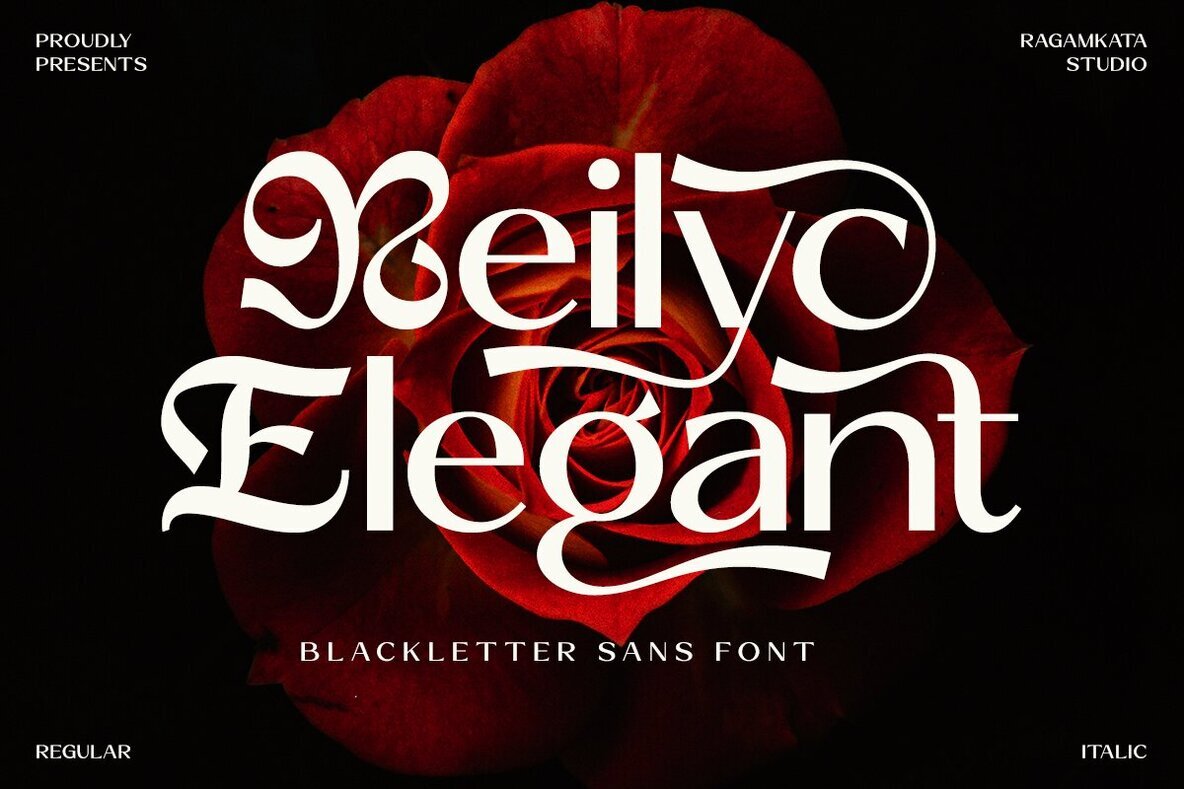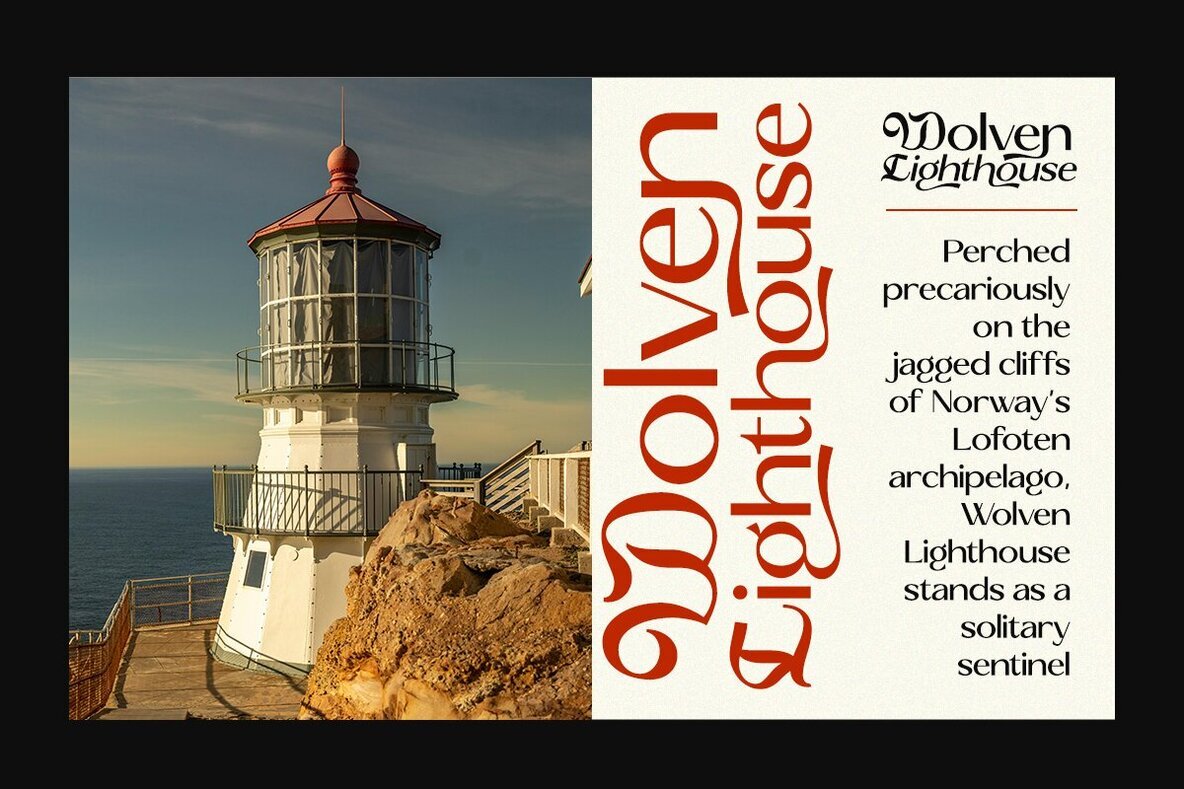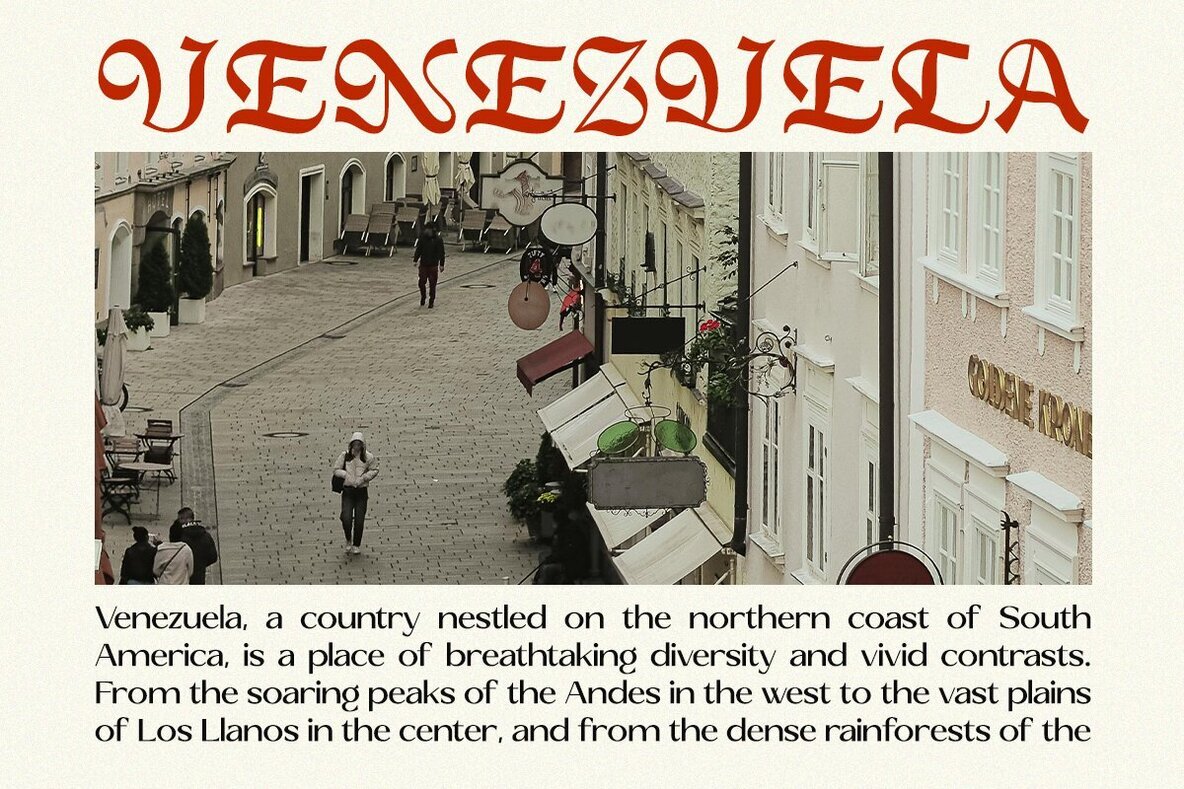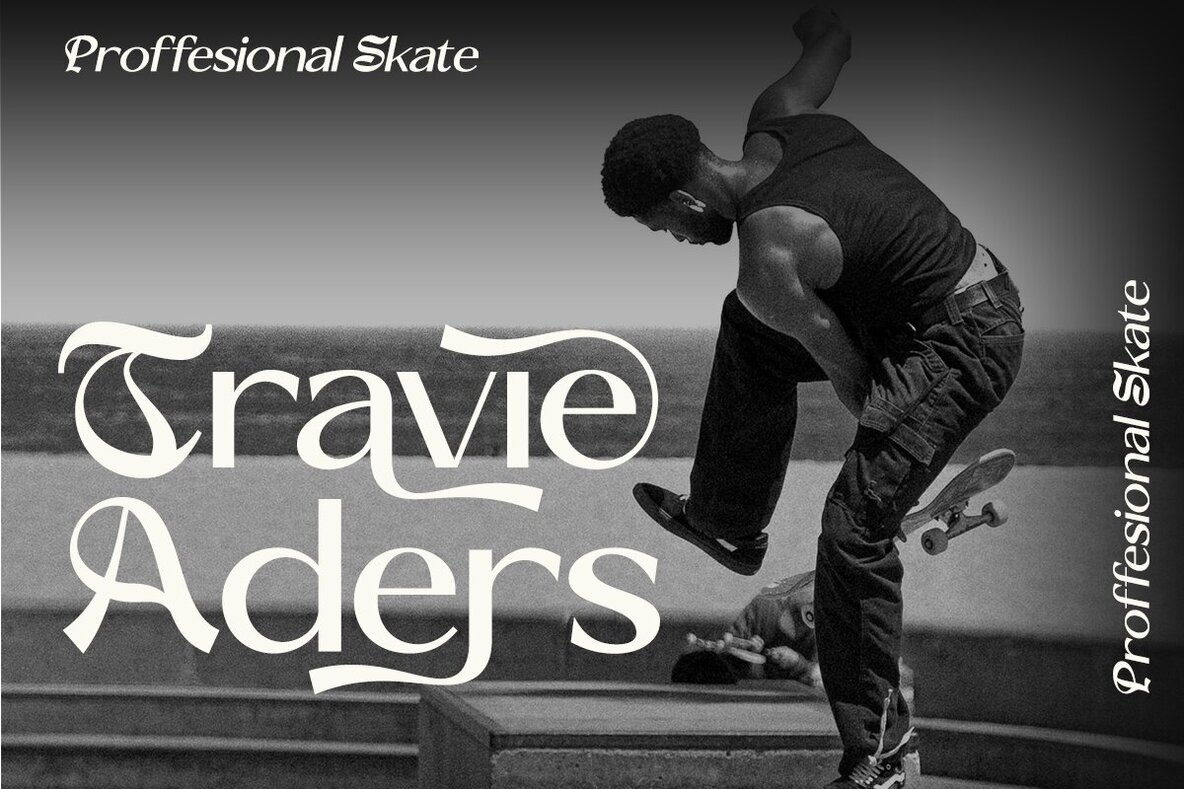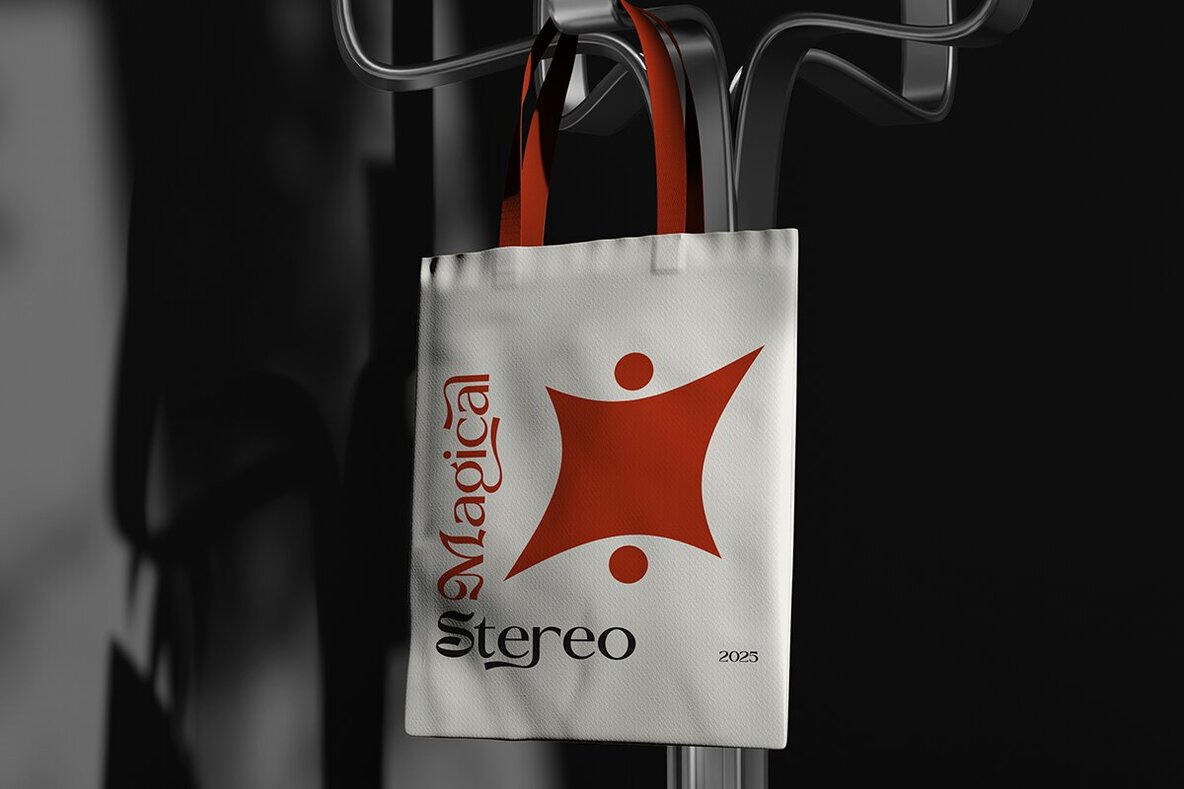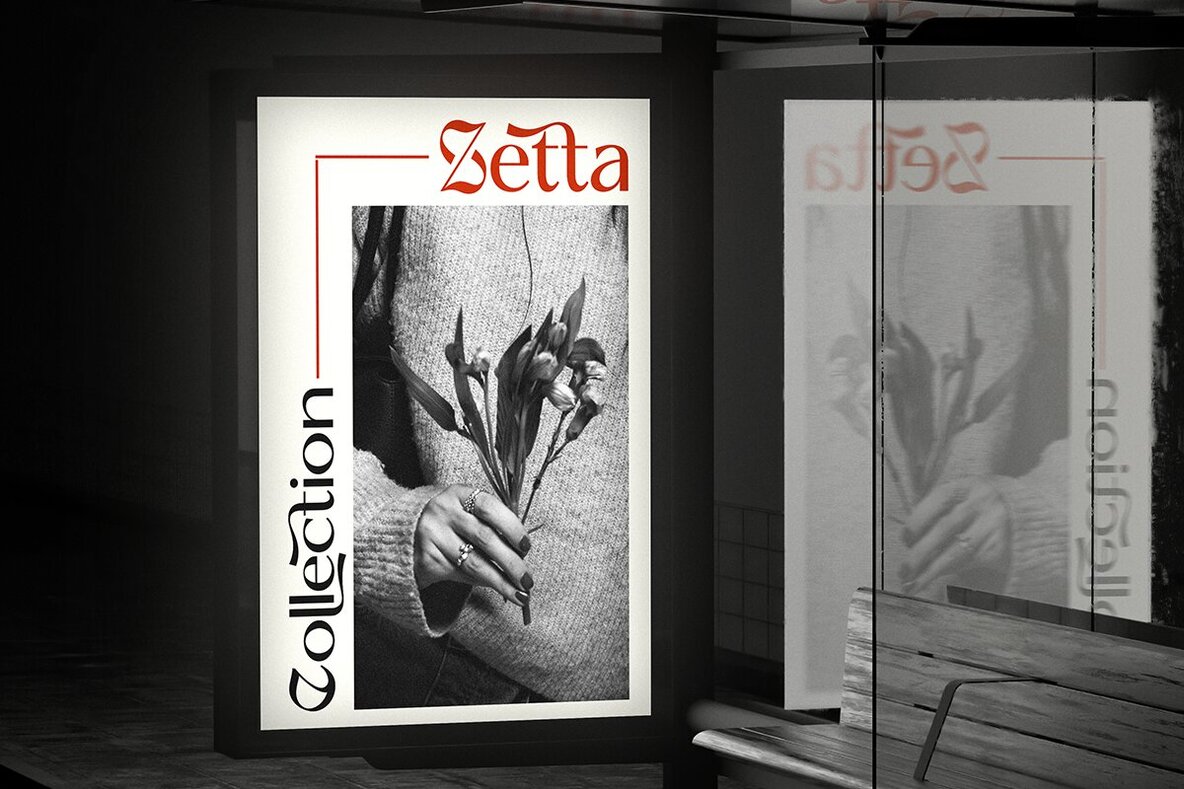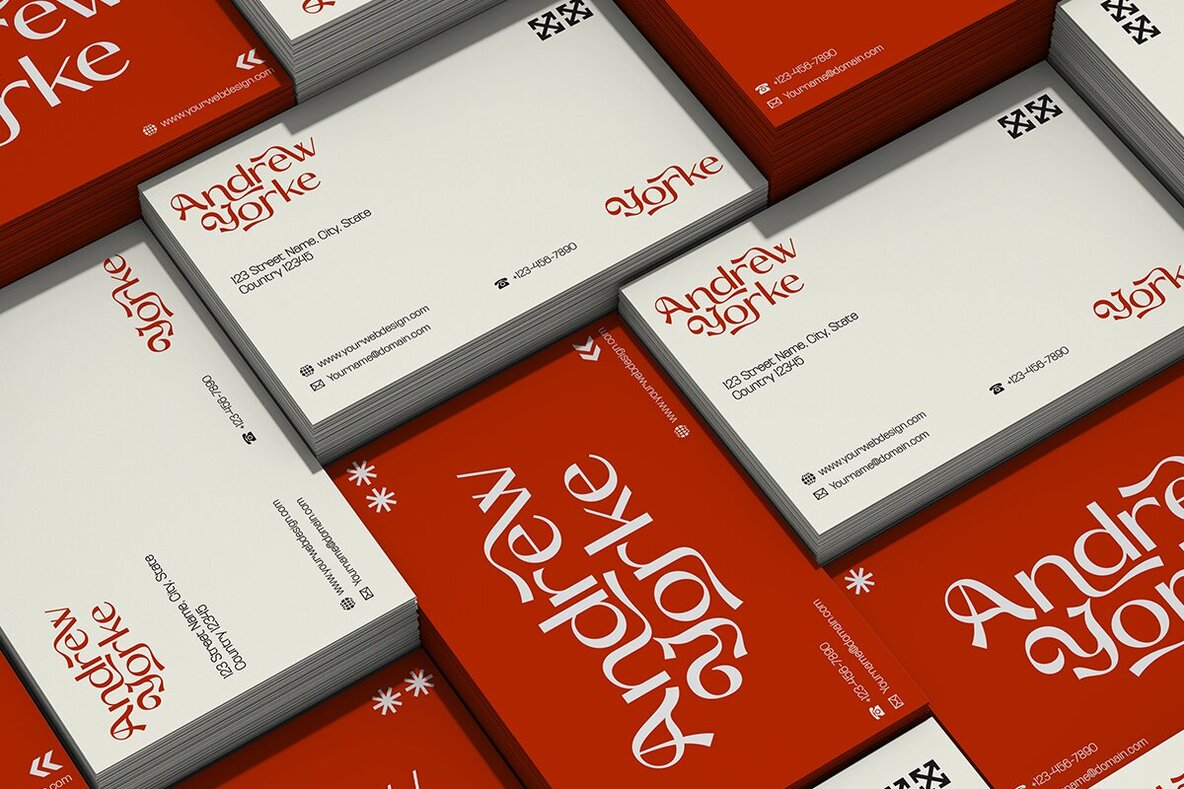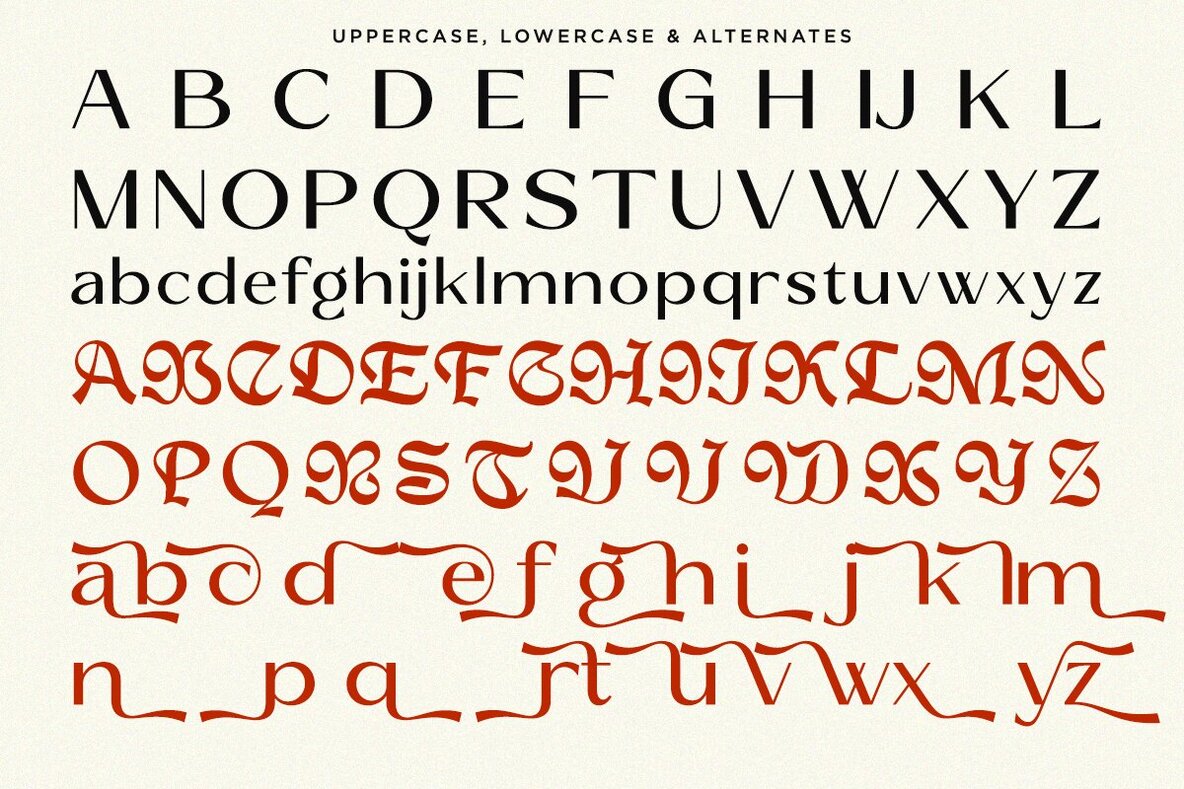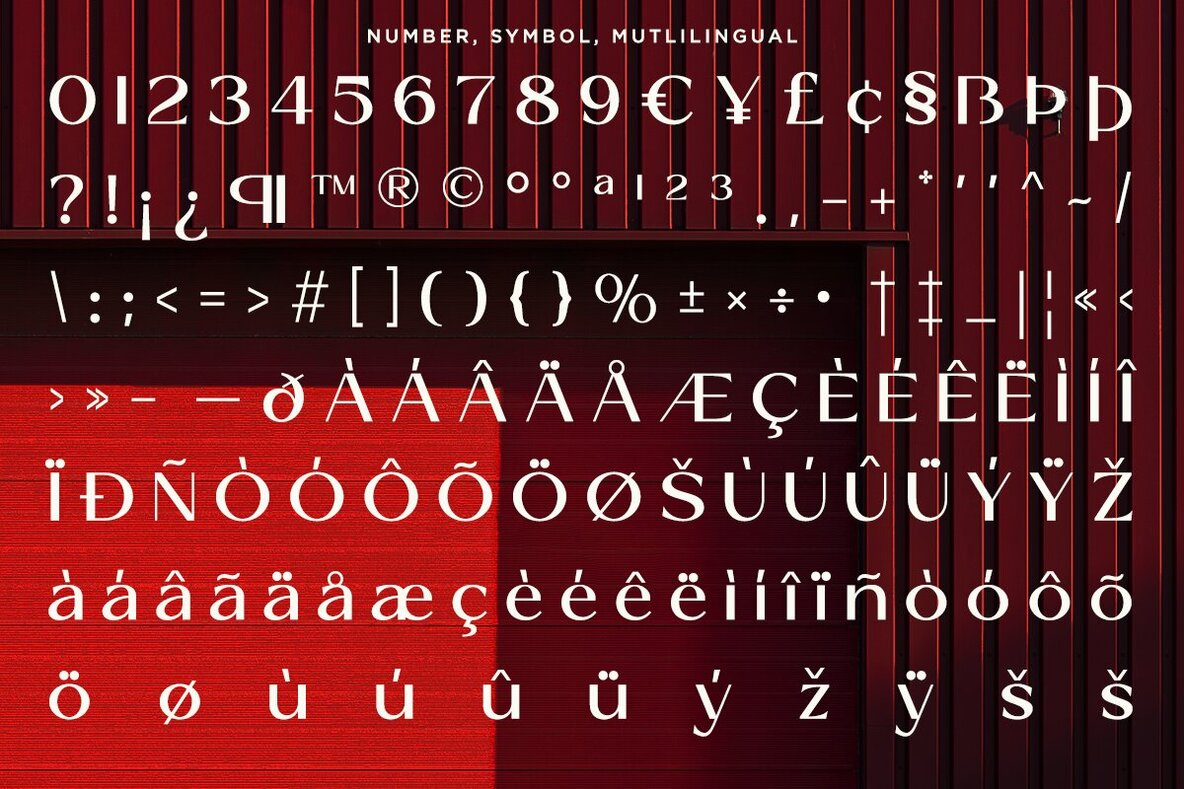
Reilyc Elegant Font
Reilyc Elegant stands out with its fusion of classic blackletter character and modern clarity. The design brings together the dramatic forms of historic blackletter with refined curves and crisp details, resulting in a typeface that feels both expressive and accessible. Its configuration is tailored for those seeking sophistication without sacrificing readability, making it suitable for editorial projects, branding, and distinctive headlines. The typeface maintains a balance between ornamental appeal and practical use. Each character exhibits careful attention to line work and finish, ensuring versatility across digital and print platforms. If you’re working on projects that demand presence and style, Reilyc Elegant delivers both with consistency.Reilyc Elegant: Contemporary Blackletter Serif Typeface